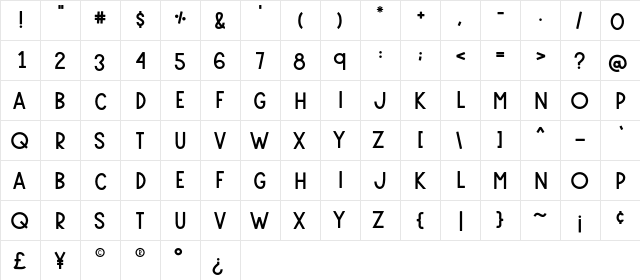
Lavigne Regular
| Foundry | Emylia Maratta |
| Designer | Emylia |
Design Context for Lavigne Typeface
Lavigne is a composed and adaptable typeface that performs quietly and consistently across a wide range of design contexts.